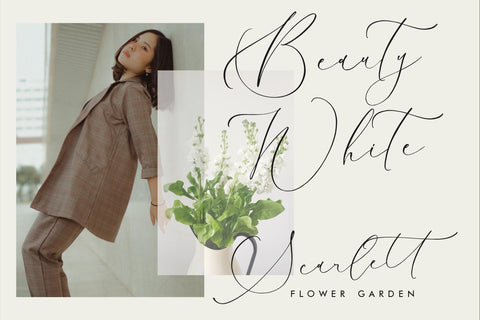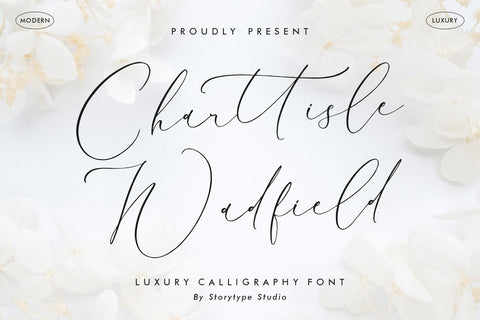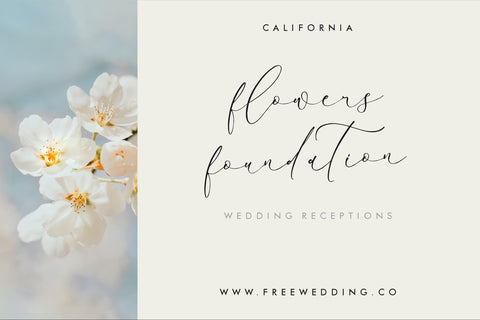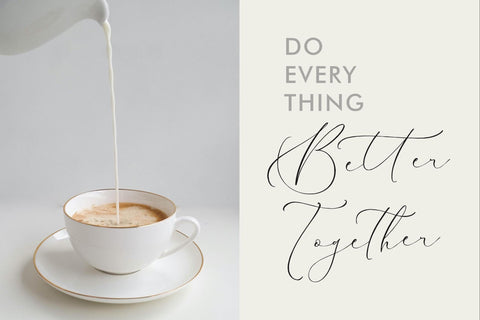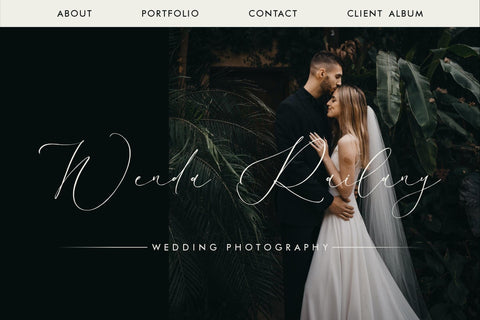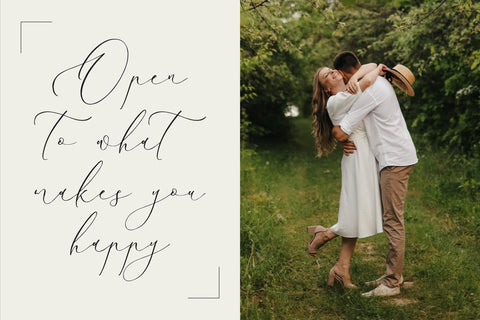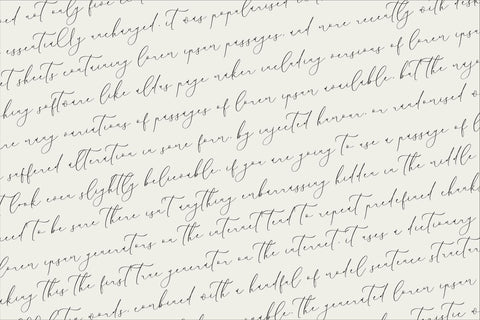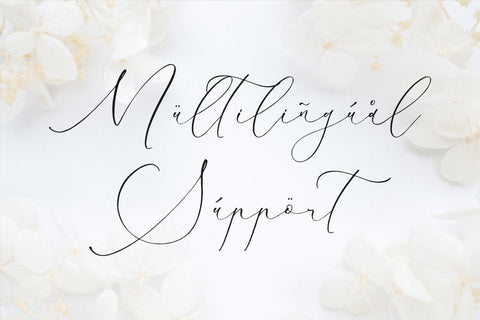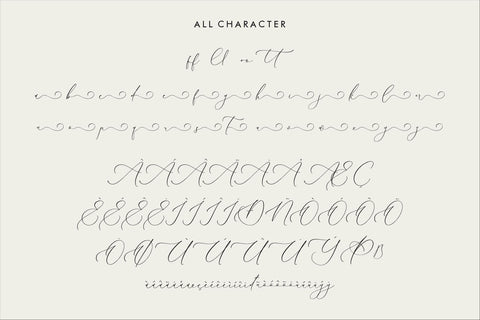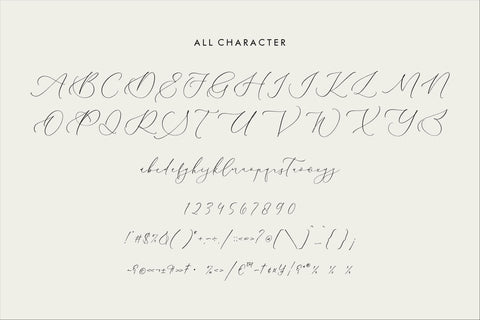
Charttisle Wadfield - Luxury Calligraphy Font
Proudly present Charttisle Wadfield - Luxury Calligraphy Font , created by Storytype,
A luxury script that has own unique style & modern look.